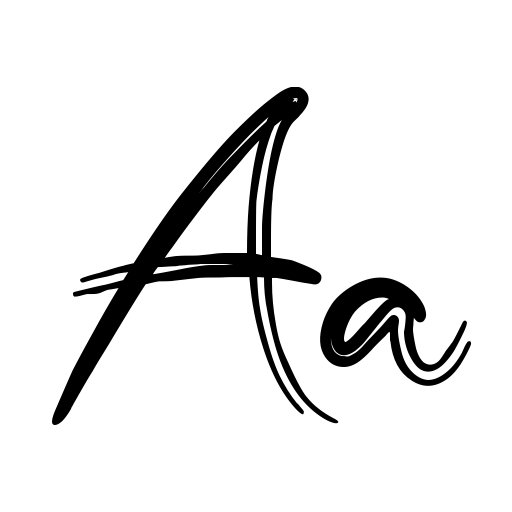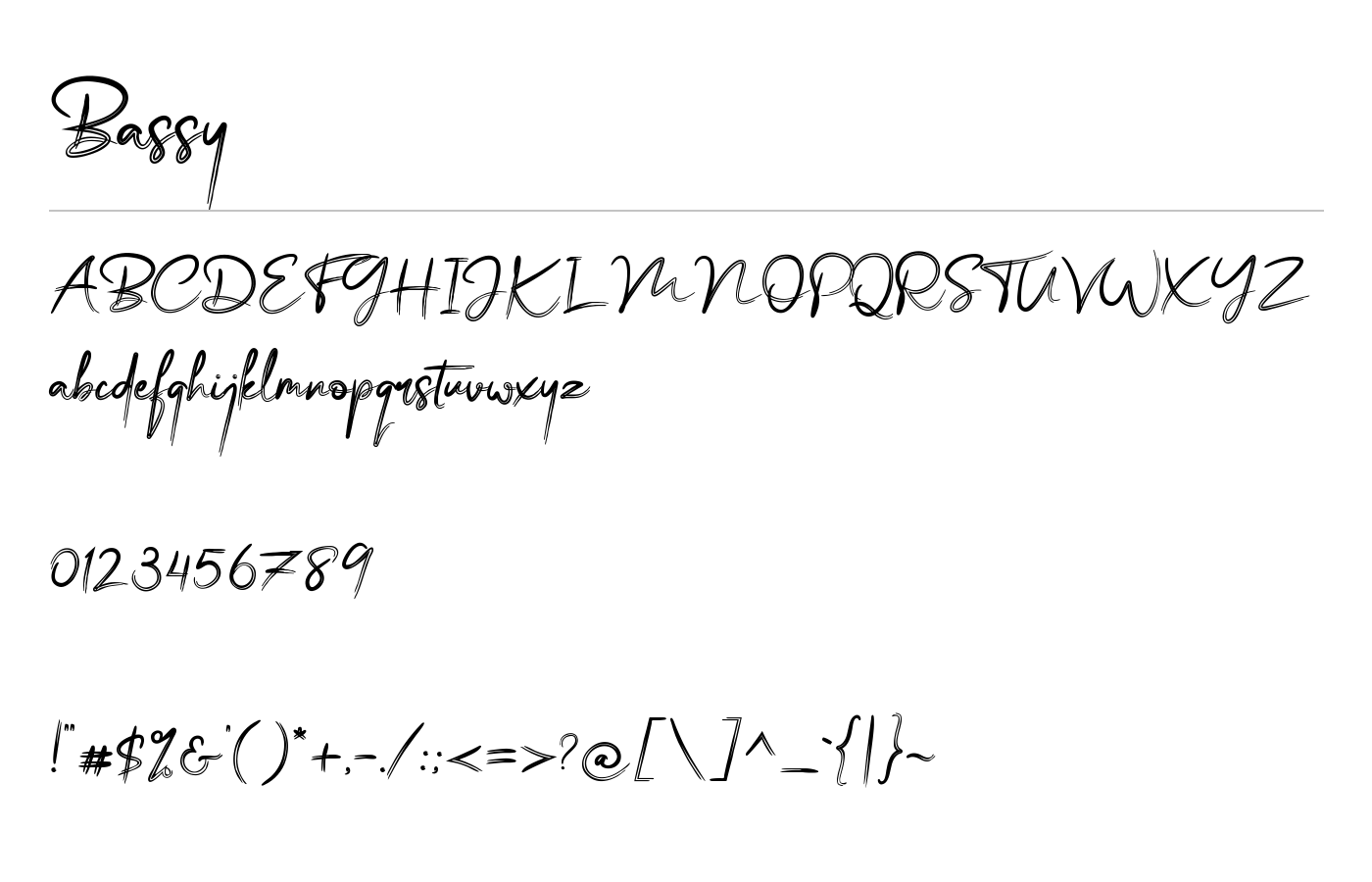
Bassy is a playful and elegant script font characterized by its thin, flowing strokes and stylish, handwritten appearance. Its tall, narrow letterforms with expressive flourishes make it ideal for creative branding, invitations, and headlines where a personal, artistic touch is desired. This font combines readability with charm, making it a great choice for projects needing a modern yet intimate feel.
Bassy Font